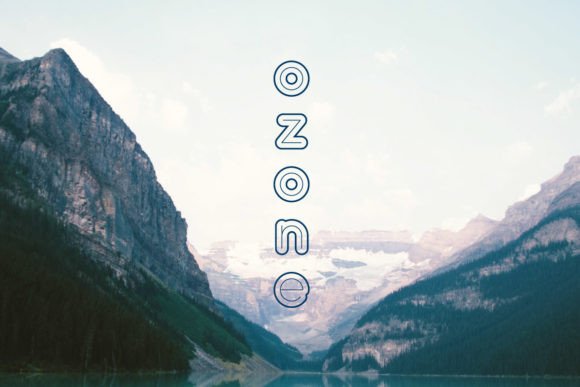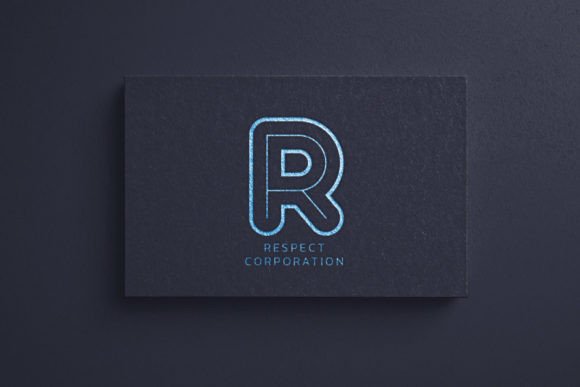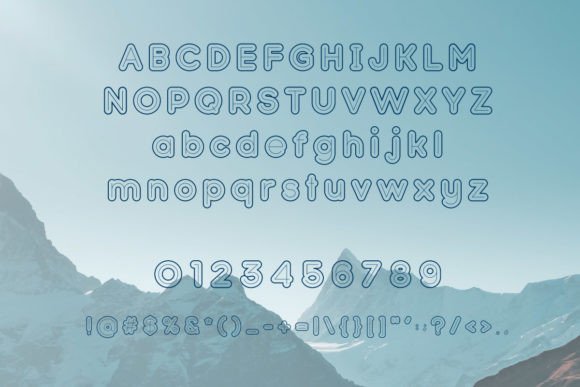
The Designer’s Delight: Unpacking the Elegance of Atmosphere Font
I’ll never forget the time I was working on a branding project for a new coffee shop. My client wanted a clean, modern look that would appeal to the young and trendy, but also convey a sense of warmth and coziness. As I scrolled through font after font, nothing seemed quite right – until I stumbled upon Atmosphere. This stunning display font caught my eye with its perfect blend of classic and contemporary vibes. In this article, I’ll share my experience with Atmosphere, its features, and how you can make the most of it in your designs.
First Impressions: A Love Letter to Atmosphere
Atmosphere is a clean and minimal display font that has become a staple in my design toolkit. Here’s what I love about it:
- ✨ Elegant curves: Atmosphere’s smooth, rounded outline makes it a joy to read and adds a touch of sophistication to any design.
- ✅ Easy legibility: The font’s classic shape and subtle character set ensure that your message is conveyed clearly, even at smaller sizes.
- ✨ Timeless feel: Atmosphere’s design strikes a perfect balance between modern minimalism and classic elegance, making it suitable for a wide range of projects.
While Atmosphere is an excellent font, it’s not without its quirks:
- 🤔 Limited character set: Atmosphere has a minimal character set, which might limit its use for longer texts or projects requiring a wide range of special characters.
- ⚠️ Not ideal for body text: Due to its display nature, Atmosphere might not be the best choice for body text or smaller font sizes.
The Story Behind Atmosphere
Atmosphere was designed with the goal of creating a clean, modern font that would appeal to designers and non-designers alike. Its creator aimed to craft a font that would be both elegant and approachable, making it perfect for a wide range of projects.
| Font Name | Atmosphere Font |
| Author | FONTNDA |
| What makes Atmosphere a great choice for display text? | Atmosphere’s clean design, elegant curves, and easy legibility make it perfect for creating striking display text. |
| Can I use Atmosphere for body text? | While Atmosphere is primarily designed for display text, it can be used for short paragraphs or captions. However, it’s not ideal for longer texts or smaller font sizes. |
| Is Atmosphere suitable for branding and logos? | Yes! Atmosphere’s unique blend of classic and modern elements makes it an excellent choice for branding and logos. |